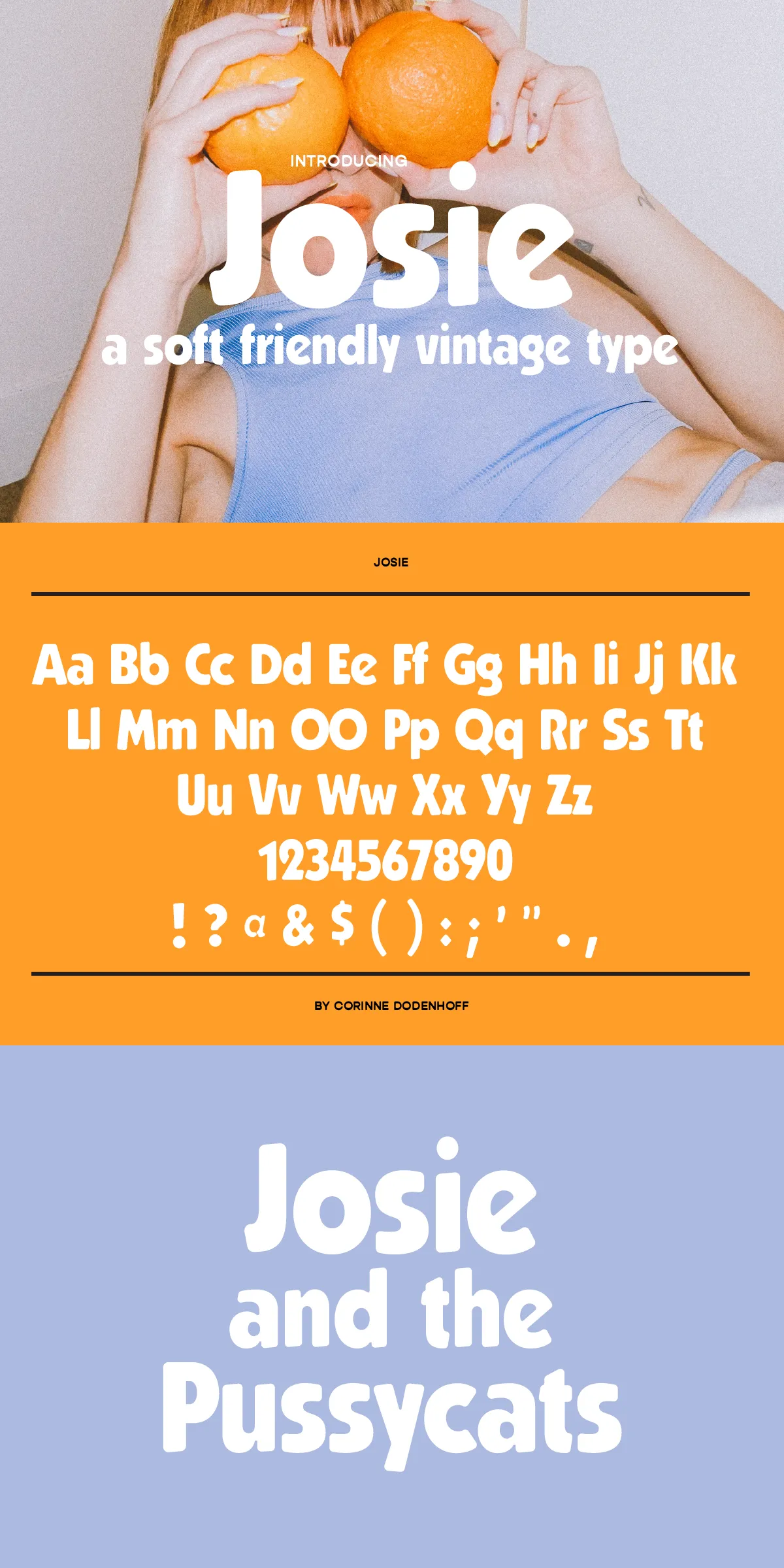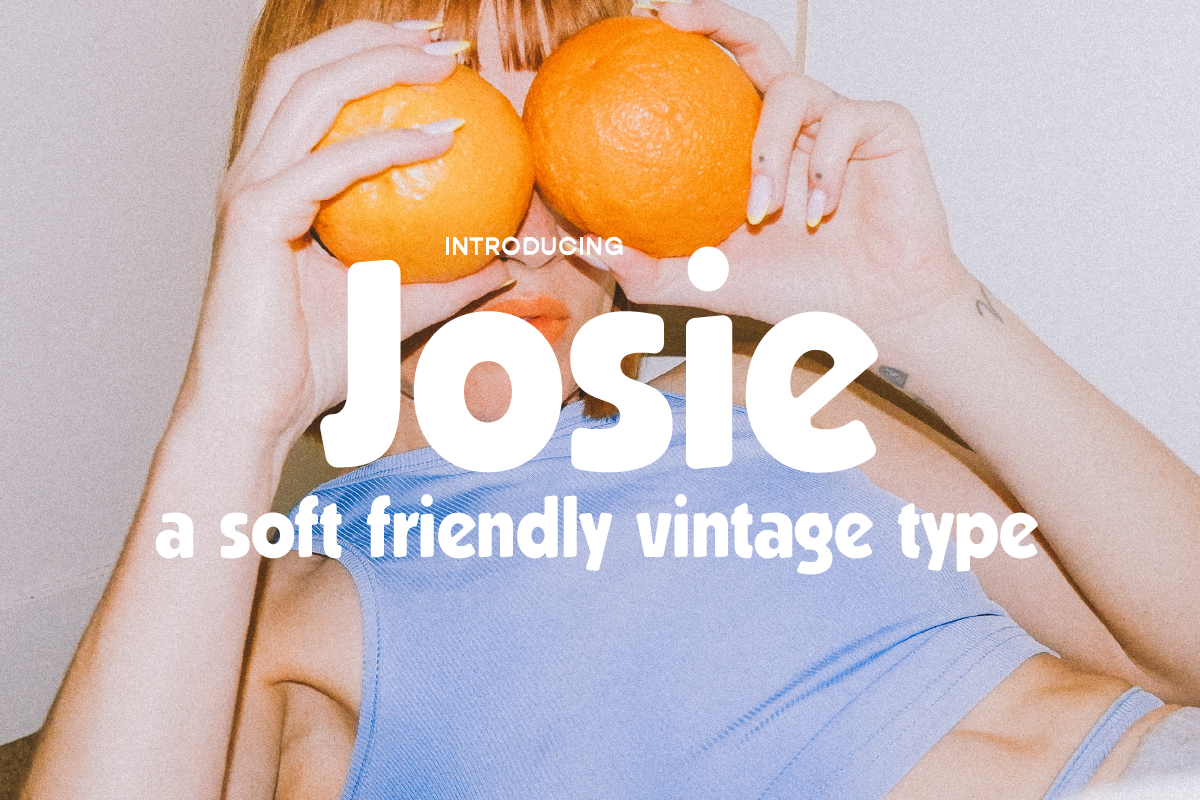
Imagine a typeface that doesn’t just convey words, but delivers tone—warm, personable, and effortlessly cool. That’s Josie. A modern homage to the bold, expressive sans serifs of the 80s and 90s, Josie brings a soft, slightly offbeat charm to every design it touches. Whether you’re crafting a brand identity, launching a blog, or designing a cozy email newsletter, Josie adds that essential human touch—like a warm, genuine conversation with your audience.
Born from Memory, Designed for Today
Josie draws inspiration from the handcrafted energy and playful geometry of classic 80s and 90s typefaces—those fonts that stood out in a sea of minimalism with their subtle quirks and personality. But it’s not a replica. It’s a reinvention. With carefully refined proportions, open counters, and a relaxed x-height, Josie balances approachability with professionalism. It’s soft without being weak, friendly without being childish, and modern without losing soul.
- Soft, Rounded Forms: Gentle curves and slightly irregular edges create a warm, inviting feel—perfect for messages meant to connect.
- Approachable Yet Polished: Designed to feel personal, yet structured enough for use in corporate communications, branding, and marketing collateral.
- High Readability: Despite its friendly flair, Josie maintains excellent legibility at all sizes—from large headlines to body text.
- Full Latin Support: Includes extensive punctuation, numerals, currency symbols, and support for multiple languages to serve global creative needs.
Where Josie Shines: Real-World Applications
Josie is not just a font; it’s a mood setter. It flourishes in any project that benefits from authenticity and personality. Here’s how top creators are using it:
- Branding & Identity: Infuse your brand with a genuine, relatable voice. Josie works wonders in logos, taglines, and brand kits where warmth matters.
- Website Headers & CTAs: Make your calls to action feel personal. A headline in Josie doesn’t shout—it invites. “Let’s chat,” it says. “We’ve got something great to share.”
- Blog & Newsletter Typography: Create content that feels like a friend writing to you. Ideal for lifestyle blogs, wellness sites, and creative entrepreneur platforms.
- Product Packaging & Labels: Elevate your product’s story. Josie gives a handmade, human-scaled feel—perfect for indie brands, cosmetics, and artisan food.
- Event Invitations & Promotions: Replace robotic formalities with heartfelt, memorable invites that spark excitement and inclusion.
- Social Media Text Overlays: Add personality to your visuals. Use Josie in quotes, stats, or motivational lines to make your content stand out with heart.
More Than Just a Font—It’s a Design Assistant
Want a bolder presence? Pair it with a clean serif for contrast. Need a touch of playfulness? Use alternate glyphs for select letters. The font family includes multiple weights—from Light to Bold—and italics, all designed to harmonize in both digital and print formats.
Design with Emotional Intelligence
In an age of algorithmic design and AI-generated copy, authenticity stands out. Josie isn’t about trends—it’s about temperament. When you choose Josie, you’re not just selecting a typeface; you’re choosing to communicate with empathy, warmth, and confidence.
It’s not the loudest font in the kit. But it’s the one your audience remembers.